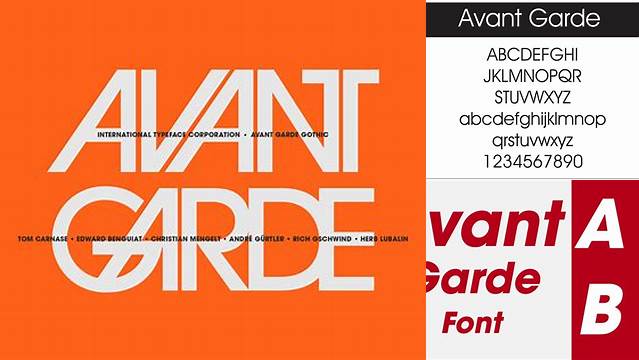
Hey guys! Looking for a sleek, modern font that screams sophistication? You've probably heard of Avant Garde. This font is a classic for a reason, and you can often find versions available for free download on sites like DaFont. Let's dive into everything Avant Garde, from its history and uses to where you can snag it for your next project. We will cover its variations and similar fonts. This guide will cover everything you need to know about Avant Garde font.
History of Avant Garde Font
Alright, so before we get into the nitty-gritty of downloading, let's take a quick trip down memory lane. The Avant Garde font, officially named Avant Garde Gothic, wasn't originally designed as a font at all! It started as a logo and typeface concept for the Avant Garde magazine in the late 1960s. The design was the brainchild of Herb Lubalin and Tom Carnase. They wanted something super geometric and modern, reflecting the magazine's cutting-edge content. The initial designs featured a lot of unique ligatures – those cool combinations where two or more letters are joined together to create a single glyph. The font was later expanded into a full typeface family, and it quickly became a favorite for its clean lines and distinctive look. This font, with its roots in a visual revolution, continues to inspire designers today. It stands as a testament to the power of thoughtful typography. Its design is a symbol of the late 1960s' spirit of innovation and forward-thinking design. Knowing this history gives you a deeper appreciation for the font's impact and relevance.
Why Choose Avant Garde Font?
So, why should you even bother with Avant Garde font? What makes it so special? Well, for starters, it's incredibly versatile. Its clean, geometric shapes make it perfect for a wide range of applications. Think logos, posters, headlines, and even body text (though maybe not too much body text – it can get a little tiring on the eyes after a while). The font exudes a sense of modernism and sophistication, making it a great choice for brands that want to project a forward-thinking image. Plus, its distinctive letterforms ensure that your designs will stand out from the crowd. Whether you're designing a sleek website, a minimalist poster, or a modern logo, Avant Garde adds a touch of class. It has an appeal that resonates with a wide audience. That’s a valuable asset in any design project. It's easy to see why designers continue to use it. It's a reliable choice that never goes out of style.
Avant Garde Font Variations
You know, one cool thing about Avant Garde is that it comes in a bunch of different variations. You've got your regular, bold, italic, and even condensed versions. Each variation has its own unique flavor. The bold version is great for making a statement, while the italic version adds a touch of elegance. The condensed version is perfect for squeezing text into tight spaces. Playing around with these variations can really add some depth and visual interest to your designs. Experiment with combining different weights and styles to create a visual hierarchy and emphasize key information. You could also use the different variations to create a unique typographic system for your brand. The possibilities are endless! It's all about finding the right combination that works for your specific project. Remember, design is all about experimentation! So go wild and see what you can come up with.
Similar Fonts to Avant Garde
If you're digging the geometric vibe of Avant Garde but want to explore some other options, there are tons of similar fonts out there. Futura is a classic choice with a similar geometric structure, while Montserrat is a more modern alternative that's super popular on Google Fonts. Another option is Century Gothic, which is widely available and has a slightly softer feel than Avant Garde. Exploring these alternative fonts can help you find the perfect fit for your project. You might discover a hidden gem that you love even more than Avant Garde! Plus, using a different font can help your designs stand out from the crowd. Don't be afraid to experiment and try new things. The world of typography is vast and full of exciting possibilities. So go out there and explore it!
Using Avant Garde in Logos
One of the most popular uses for Avant Garde is in logo design. Its clean, modern lines make it a great choice for brands that want to project a sense of sophistication and innovation. Many famous logos have used variations of Avant Garde, showcasing its versatility and timeless appeal. When using Avant Garde in a logo, it's important to consider the overall brand identity and target audience. The font should complement the brand's message and values. It should also be legible and memorable. Experiment with different weights and styles to find the perfect balance. You might also want to consider creating a custom version of the font to make your logo even more unique. A well-designed logo can be a powerful asset for any brand. It can help to create a strong visual identity and build brand recognition. So, it's worth investing the time and effort to get it right.
Avant Garde for Web Design
Avant Garde can also be a great choice for web design, especially for headlines and display text. Its clean lines and geometric shapes make it easy to read on screen, and its modern aesthetic can add a touch of sophistication to any website. However, it's important to use it sparingly, as too much Avant Garde can be overwhelming. Stick to using it for headings and other short pieces of text, and choose a more readable font for body copy. You should also make sure that the font is properly optimized for the web. This means using a web-friendly font format (like WOFF or WOFF2) and optimizing the font files for speed. A slow-loading font can have a negative impact on your website's performance, so it's important to get it right. With a little bit of care and attention, Avant Garde can be a valuable asset for your web design projects.
Pairing Avant Garde with Other Fonts
To really make Avant Garde shine, try pairing it with other fonts that complement its style. A classic combination is pairing it with a simple sans-serif font like Helvetica or Arial for body text. This creates a clean and modern look that's easy on the eyes. Another option is to pair it with a contrasting serif font like Garamond or Times New Roman. This can create a more dynamic and visually interesting design. When pairing fonts, it's important to consider the overall tone and message of your design. The fonts should work together to create a cohesive and harmonious look. Experiment with different combinations until you find something that feels right. There are no hard and fast rules when it comes to font pairing, so don't be afraid to break the mold and try something new.
Avant Garde in Print Design
Avant Garde isn't just for digital designs – it can also be a great choice for print projects. Its clean lines and geometric shapes make it perfect for posters, brochures, and other printed materials. When using Avant Garde in print, it's important to choose a high-quality version of the font that will reproduce well at different sizes. You should also pay attention to the kerning and leading to ensure that the text is legible and visually appealing. Experiment with different colors and textures to create a unique and eye-catching design. A well-designed print project can be a powerful way to communicate your message and reach your target audience. So, it's worth investing the time and effort to get it right. Plus, the tactile nature of print can add an extra dimension to your design.
Licensing Considerations for Avant Garde
Okay, let's talk about licensing. This is super important, guys. When you download Avant Garde (or any font, really), you need to be aware of the licensing restrictions. As we mentioned earlier, many free fonts are only licensed for personal use. This means you can use them for your own projects, but not for anything that generates income. If you want to use Avant Garde for commercial purposes, you'll need to purchase a commercial license. This license gives you the right to use the font in your business's logo, website, marketing materials, and other commercial projects. Failing to obtain a proper license can lead to legal trouble, so it's not worth the risk. Always check the font's license agreement before using it in any project. If you're unsure about the licensing terms, contact the font's designer or a reputable font foundry for clarification. It's better to be safe than sorry!
Tips for Using Avant Garde Effectively
To really make Avant Garde shine, here are a few tips to keep in mind. First, use it sparingly. Avant Garde is a distinctive font, so a little goes a long way. Overusing it can make your designs look cluttered and overwhelming. Second, pay attention to the kerning and leading. Proper kerning and leading can make a big difference in the readability and visual appeal of your text. Third, experiment with different weights and styles. Avant Garde comes in a variety of weights and styles, so play around with them to find the perfect combination for your project. Fourth, pair it with other fonts that complement its style. A well-chosen font pairing can elevate your designs and create a more harmonious look. Finally, always double-check the licensing restrictions before using Avant Garde in any project. Following these tips will help you use Avant Garde effectively and create stunning designs that stand out from the crowd.
Avant Garde and Brand Identity
Avant Garde can be a powerful tool for creating a strong brand identity. Its clean, modern lines and geometric shapes can help to project a sense of sophistication, innovation, and forward-thinking. Many brands have used Avant Garde in their logos, websites, and marketing materials to create a consistent visual identity. When using Avant Garde for brand identity, it's important to consider the overall brand message and values. The font should align with the brand's personality and target audience. It should also be memorable and easily recognizable. Creating a consistent brand identity can help to build brand recognition, increase customer loyalty, and differentiate your brand from the competition. So, it's worth investing the time and effort to get it right.
Avant Garde in the World of Art
The influence of Avant Garde extends beyond graphic design and into the world of art. Its geometric forms and modernist aesthetic have inspired artists in various disciplines, from painting and sculpture to architecture and digital art. Many artists have incorporated Avant Garde into their works, using it to create a sense of order, clarity, and precision. The font's clean lines and geometric shapes can be seen as a reflection of the modernist movement's emphasis on rationality and functionality. By incorporating Avant Garde into their art, artists can create works that are both visually striking and intellectually stimulating. The font's timeless appeal ensures that it will continue to inspire artists for many years to come. It's a testament to the power of typography to transcend its functional purpose and become a source of artistic inspiration.
How to Install Avant Garde Font
Okay, you've downloaded Avant Garde, now what? Here's a quick guide on how to install it on your computer. On Windows, simply right-click on the font file and select "Install". The font will then be installed and available for use in all of your applications. On macOS, double-click on the font file to open it in Font Book. Then, click the "Install Font" button to install the font. Once the font is installed, you can start using it in your favorite design software. If you're having trouble installing the font, consult your operating system's documentation or search online for troubleshooting tips. Installing fonts is usually a straightforward process, but sometimes things can go wrong. Don't worry, with a little bit of effort, you'll get it sorted out. And once you do, you'll be ready to start creating amazing designs with Avant Garde.
Avant Garde and Legibility
While Avant Garde is a beautiful and versatile font, it's important to consider its legibility, especially when using it for body text. Its geometric shapes and tight spacing can make it difficult to read in large blocks of text. For this reason, it's generally best to use Avant Garde for headlines, subheadings, and other short pieces of text. For body copy, choose a more readable font that's designed for long-form reading. When using Avant Garde, pay close attention to the kerning and leading. Proper kerning and leading can improve the legibility of the font and make it easier on the eyes. You should also avoid using Avant Garde in very small sizes, as this can make it even more difficult to read. By being mindful of these factors, you can use Avant Garde effectively without sacrificing legibility.
Avant Garde: Bold vs. Regular
The Avant Garde font family typically includes both bold and regular weights, each serving distinct purposes in design. The regular weight is ideal for body text and situations where a subtle, clean appearance is desired. Its lighter strokes and uniform letterforms provide a balanced and readable texture, suitable for conveying information without overwhelming the reader. On the other hand, the bold weight is designed to grab attention. It is perfect for headlines, subheadings, and callouts where emphasis is needed. The thicker strokes of the bold variant make the text stand out, ensuring it is easily noticed and remembered. Choosing between bold and regular depends on the design's specific needs. For a professional document, regular weight might be used for the main text, with bold reserved for key headings. In contrast, a poster or advertisement might leverage bold to quickly convey its message.
Avant Garde in Modern Design Trends
Avant Garde has remained a relevant and influential typeface in modern design trends, adapting to contemporary aesthetics while retaining its original charm. Its geometric precision and clean lines fit seamlessly into minimalist designs, where simplicity and clarity are key. Additionally, Avant Garde's distinctive letterforms lend themselves well to modern branding, providing a sophisticated and unique visual identity for businesses. Its continued popularity is also evident in web design, where it is often used for headings and navigation menus. Its readability and elegance make it a suitable choice for creating a user-friendly and visually appealing online experience. Avant Garde’s adaptability ensures it remains a versatile tool for designers, capable of adding a touch of class and modernity to any project, whether print or digital. Its ability to blend with current trends while maintaining its timeless appeal underscores its enduring significance in the design world.
Avant Garde Font and Accessibility
When using Avant Garde, it's important to consider accessibility to ensure your designs are inclusive and readable for everyone, including individuals with visual impairments. While Avant Garde's clean, geometric forms can be visually appealing, its tight letter spacing and uniform strokes might pose challenges for some readers. To enhance accessibility, prioritize proper kerning and leading to create sufficient space between letters and lines. This can improve readability and reduce visual strain. Additionally, ensure adequate contrast between the text and background colors. High contrast ratios make the text easier to discern, especially for those with low vision. For body text, consider using a more traditional and legible font, reserving Avant Garde for headlines and shorter text elements. By implementing these accessibility best practices, you can create designs that are both aesthetically pleasing and inclusive, ensuring that everyone can access and understand your content.
Avant Garde Font Inspirations
The Avant Garde font, designed by Herb Lubalin and Tom Carnase, draws inspiration from several sources, blending geometric precision with modernist ideals. One primary influence is the Bauhaus movement, known for its emphasis on functionality and clean, geometric forms. This is evident in Avant Garde’s streamlined shapes and minimalist design. Another key inspiration is the Art Deco style, which contributed to its sense of elegance and sophistication. The font also reflects the progressive spirit of the late 1960s and early 1970s, a period marked by innovation and experimentation in art and design. The avant-garde art movement itself, which sought to challenge traditional artistic conventions, also played a significant role. Understanding these influences provides deeper insight into the font’s distinctive character and its enduring appeal in the design world. By drawing from these varied sources, Avant Garde has become a symbol of modernity and creative expression.
Free Alternatives to Avant Garde
If you're looking for free alternatives to Avant Garde, several excellent options capture a similar geometric and modernist aesthetic. Montserrat is a popular choice, offering clean lines and a versatile range of weights. It is widely used in web design and branding projects. Another alternative is Raleway, which features a slightly more elegant and refined appearance while maintaining a similar geometric structure. Lato is another excellent option, known for its balanced and readable design, making it suitable for both headings and body text. These free fonts provide cost-effective solutions for designers seeking Avant Garde-inspired typefaces without compromising on quality. Each offers unique characteristics that can enhance the visual appeal of various projects, from websites and logos to print materials. Exploring these alternatives can help you find the perfect font to match your design needs and aesthetic preferences.
Avant Garde and Typography Rules
When working with Avant Garde, adhering to basic typography rules can significantly enhance the visual appeal and readability of your designs. One key rule is to pay close attention to kerning, the spacing between individual letters. Avant Garde’s unique letterforms often require careful kerning adjustments to ensure a balanced and harmonious appearance. Leading, the vertical space between lines of text, is also crucial. Adequate leading improves readability, especially in longer blocks of text. Avoid using too many different font weights or styles within the same design, as this can create a cluttered and confusing look. Instead, stick to a consistent typographic hierarchy to guide the reader’s eye. Always ensure sufficient contrast between the text and background colors for optimal readability. By following these fundamental typography rules, you can maximize the effectiveness of Avant Garde and create visually appealing and professional designs.
Avant Garde in 3D Design
Avant Garde can be effectively used in 3D design to add a touch of modern elegance and geometric precision to various projects. Its clean lines and distinctive letterforms translate well into three-dimensional space, making it a suitable choice for creating impactful signage, architectural renderings, and product visualizations. When incorporating Avant Garde into 3D designs, consider the lighting and materials to enhance its visual appeal. Experiment with different textures and finishes to create depth and dimension. Proper scaling and positioning are also essential to ensure the text is legible and visually balanced within the 3D environment. Whether used for branding elements, environmental graphics, or decorative accents, Avant Garde can elevate the overall aesthetic of 3D designs, adding a sophisticated and contemporary touch. Its versatility and timeless appeal make it a valuable asset for designers working in three dimensions.
The Psychology of Avant Garde Font
Avant Garde evokes specific psychological responses due to its modernist design and geometric precision. The font conveys a sense of sophistication, clarity, and efficiency, making it suitable for brands and designs that want to project a forward-thinking and professional image. Its clean lines and minimalist forms suggest order and rationality, which can instill trust and confidence in the viewer. Avant Garde’s geometric shapes also contribute to its sense of modernity, aligning it with innovation and progress. However, its somewhat sterile and impersonal nature might not be appropriate for designs that require warmth, emotion, or a more human touch. Understanding the psychological impact of Avant Garde allows designers to use it strategically, aligning the font's inherent qualities with the intended message and audience. By considering these psychological factors, designers can create more effective and resonant visual communications.
Avant Garde and Digital Art
Avant Garde has found a place in digital art, adding a sophisticated and modern touch to various creative projects. Its geometric precision and clean lines make it an excellent choice for creating visually striking and impactful designs. In digital art, Avant Garde can be used for typography-based compositions, abstract designs, and even as a subtle accent to enhance the overall aesthetic. Its versatility allows it to blend seamlessly with various digital art styles, from minimalist graphics to complex illustrations. When using Avant Garde in digital art, experiment with different color palettes, gradients, and layering techniques to create depth and dimension. Its timeless appeal ensures that it remains a valuable asset for digital artists looking to create innovative and visually compelling works. Whether used for branding elements, posters, or digital illustrations, Avant Garde can elevate the overall impact of digital art projects.
Designing a Book Cover with Avant Garde
Designing a book cover with Avant Garde can create a modern and sophisticated look that attracts readers. Its clean lines and geometric precision make it an excellent choice for genres such as science fiction, technology, and contemporary literature. When using Avant Garde on a book cover, consider the title and author name placement carefully. Use the font in a size that is easily readable and visually balanced with the overall design. Pair it with a complementary typeface for the body text to create a cohesive and harmonious look. Experiment with different color palettes and background images to enhance the cover's visual appeal. Consider using Avant Garde in bold or italic styles to emphasize key elements. By leveraging Avant Garde’s unique characteristics, you can create a book cover that stands out on the shelves and effectively communicates the book's essence to potential readers.
Avant Garde vs. Helvetica: A Comparison
Avant Garde and Helvetica are both sans-serif fonts, but they possess distinct characteristics that make them suitable for different design applications. Avant Garde, with its geometric precision and unique letterforms, conveys a sense of modernity and sophistication. It is often used for logos, headlines, and designs that require a distinctive and stylish touch. Helvetica, on the other hand, is known for its neutrality and versatility. Its clean and simple design makes it highly readable and suitable for a wide range of applications, including body text, signage, and corporate communications. While Avant Garde can add a touch of elegance and flair, Helvetica provides a more understated and practical option. Choosing between the two depends on the specific design goals and the desired aesthetic. Avant Garde is ideal for designs that aim to make a statement, while Helvetica is a reliable choice for clear and effective communication.
Avant Garde in Motion Graphics
Avant Garde can be a valuable asset in motion graphics, adding a touch of modern elegance and geometric precision to various projects. Its clean lines and distinctive letterforms make it an excellent choice for creating visually striking and impactful animations. In motion graphics, Avant Garde can be used for title sequences, lower thirds, and animated text elements. Its versatility allows it to blend seamlessly with various motion graphics styles, from minimalist designs to complex animations. When using Avant Garde in motion graphics, experiment with different animation techniques, such as kinetic typography and text morphing, to create dynamic and engaging visuals. Proper timing and pacing are also crucial to ensure the text is readable and visually balanced within the animation. Whether used for branding elements, promotional videos, or educational content, Avant Garde can elevate the overall impact of motion graphics projects.
Avant Garde and Visual Hierarchy
Avant Garde can be used effectively to create a clear visual hierarchy in designs, guiding the viewer's eye and emphasizing key information. By strategically using different font weights, sizes, and styles, you can establish a clear order of importance for various design elements. For example, using Avant Garde in bold for headlines and subheadings can draw attention to the most important content, while using it in regular weight for body text can provide a more subtle and readable experience. Proper spacing and alignment also play a crucial role in creating a visual hierarchy. By carefully considering the placement and arrangement of text elements, you can create a design that is both visually appealing and easy to navigate. Avant Garde’s geometric precision and clean lines make it a versatile tool for establishing a clear and effective visual hierarchy.
The Future of Avant Garde Font
The future of Avant Garde looks promising, as its timeless appeal and versatility ensure its continued relevance in the design world. As design trends evolve, Avant Garde will likely adapt and find new applications in various creative projects. Its geometric precision and clean lines align well with minimalist and modernist design principles, which are expected to remain popular in the coming years. The font's versatility also allows it to blend seamlessly with emerging technologies, such as virtual reality and augmented reality, creating immersive and visually compelling experiences. Additionally, Avant Garde’s distinctive letterforms make it a valuable asset for branding and identity design, helping businesses create a memorable and recognizable visual presence. Whether used in traditional print media or cutting-edge digital applications, Avant Garde is poised to remain a significant force in the world of typography and design.